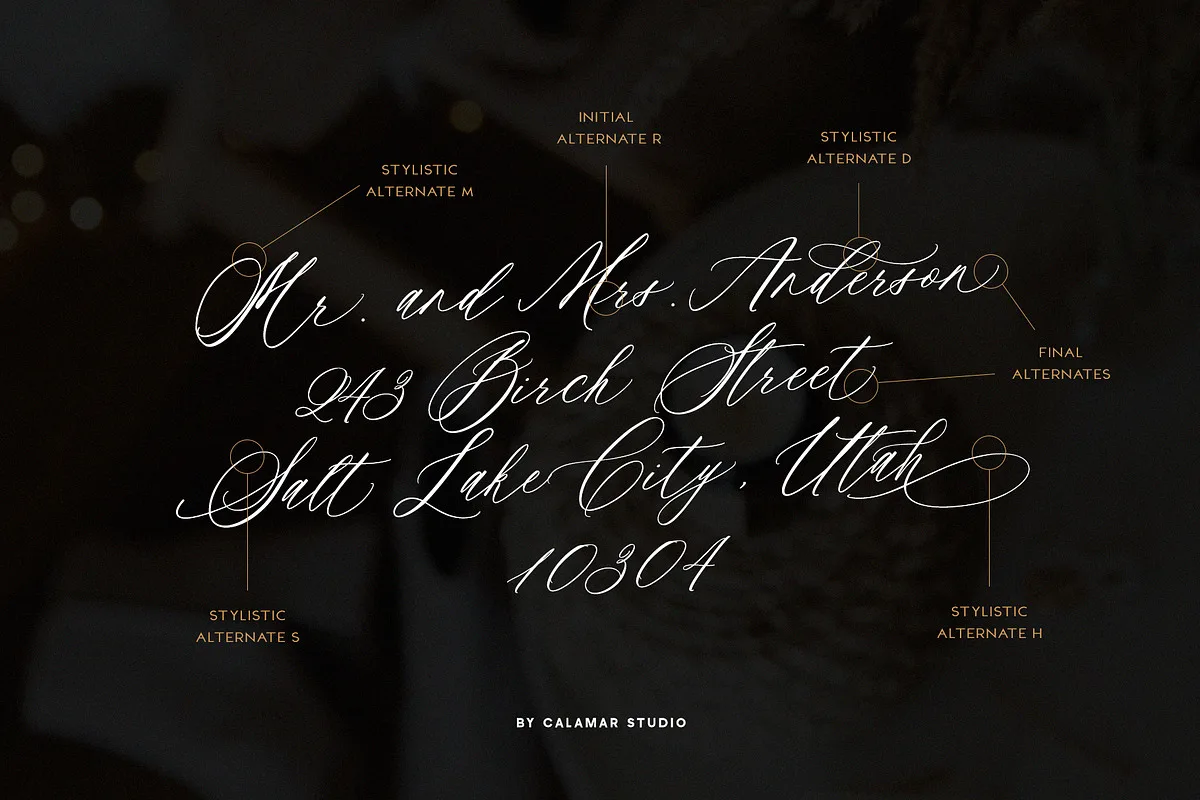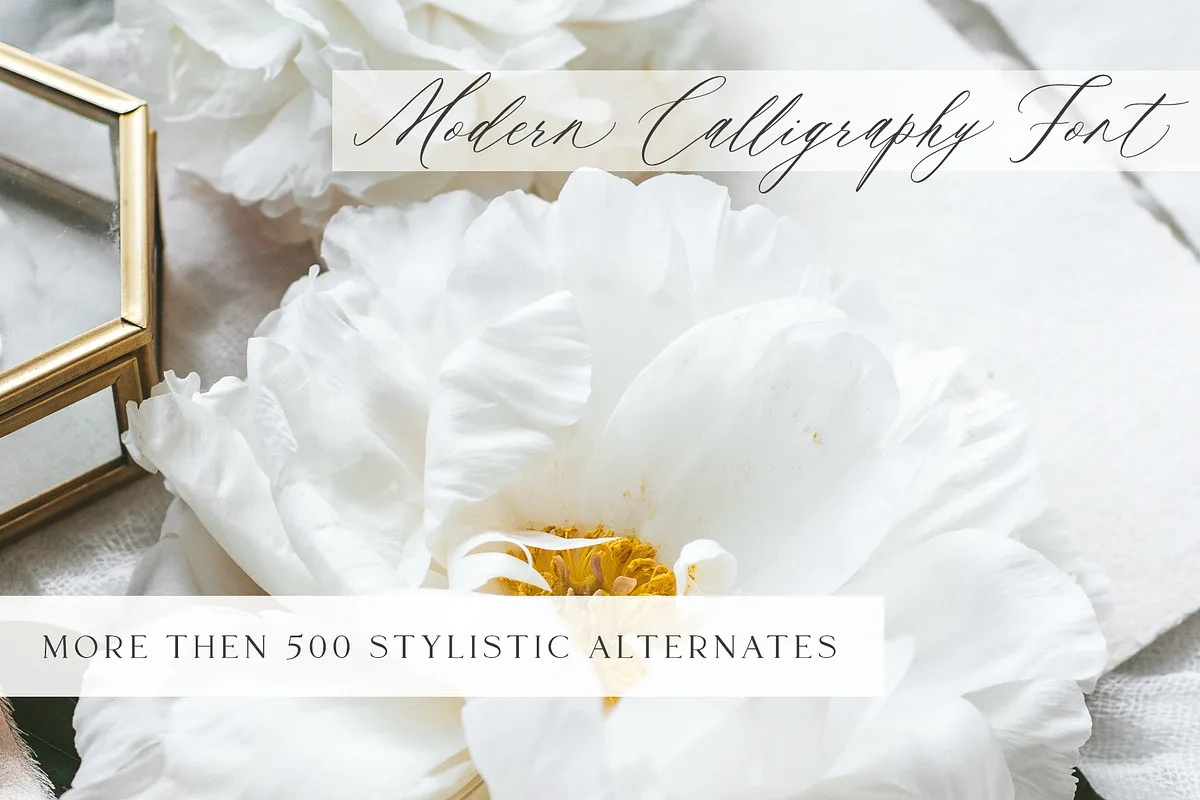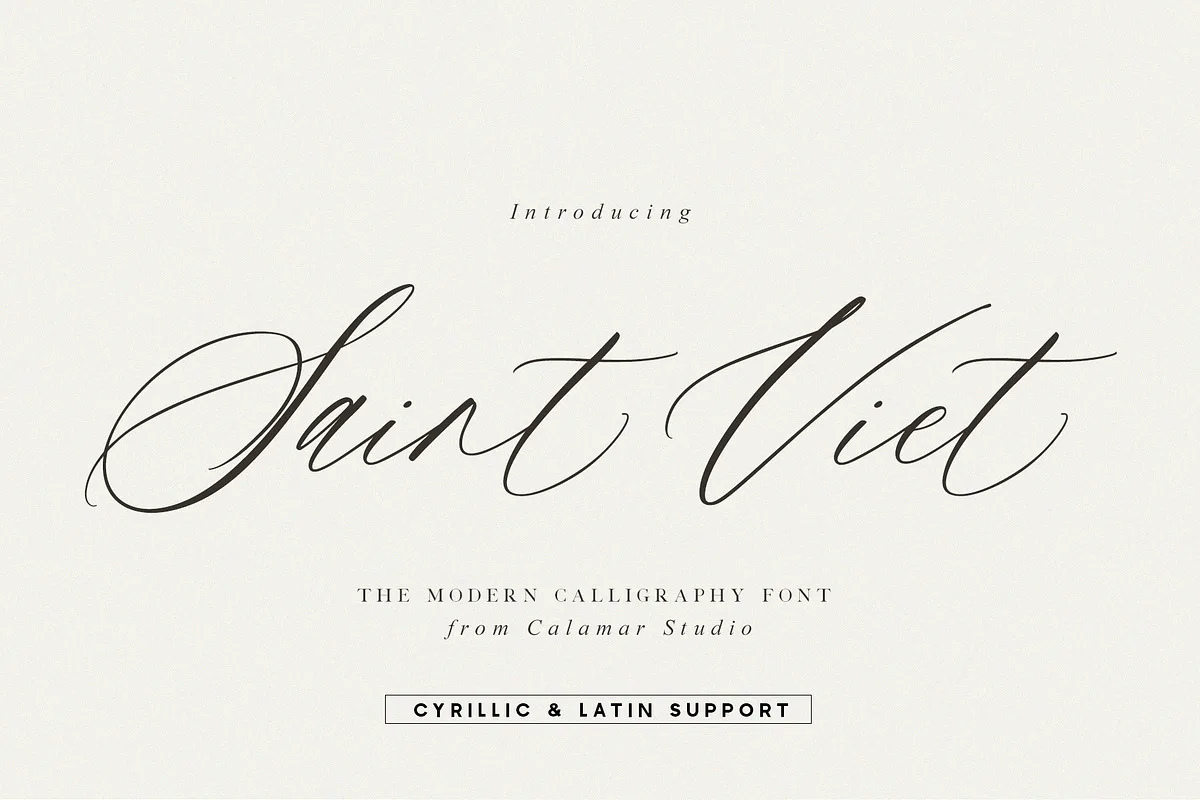
Saint Viet is a light, lovely and modern calligraphy font with sophisticated flows. This beautiful script is particularly well-suited for wedding invitations, save-the-date cards and feminine branding.
Saint Viet includes a full set of Uppercase and Lowercase Basic Characters, Numbers and Punctuation. Also, it contains ligatures and more than 500 stylistic alternates to perfectly re-create natural calligraphy.
Each Uppercase letter has 2-5 different calligraphic alternates and some of the letters have up to 10 alternatives.
This beautiful Script supports Latin & Cyrillic alphabets giving a huge range of language support.